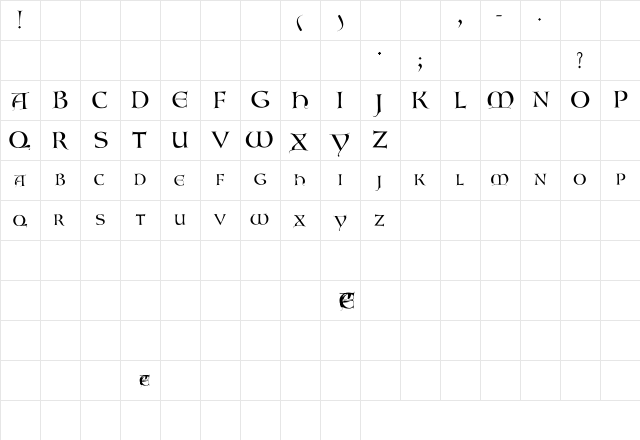
Angst 1 Regular
Design Context for Angst 1
Angst 1 is a composed and adaptable typeface that performs quietly and consistently across a wide range of design contexts.